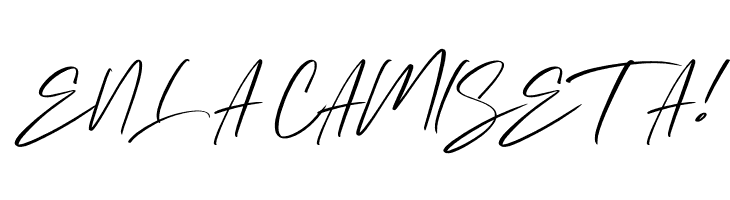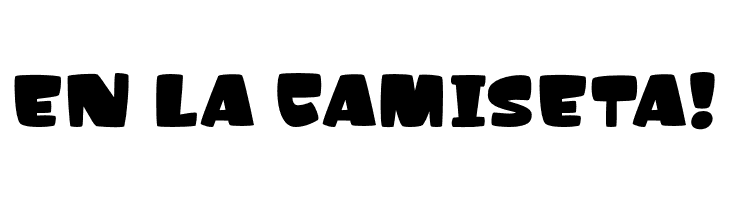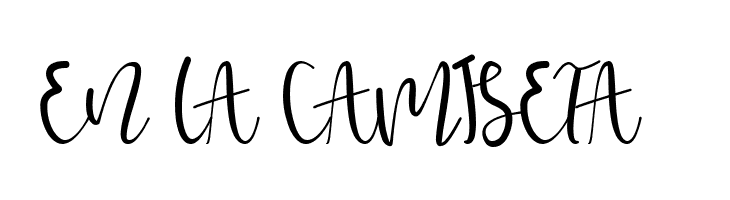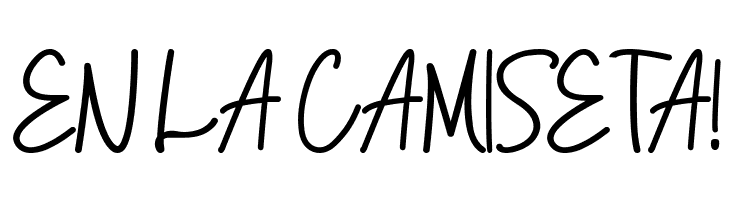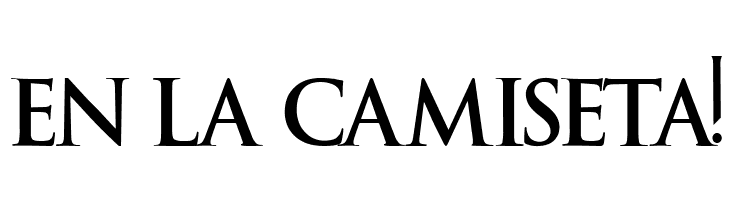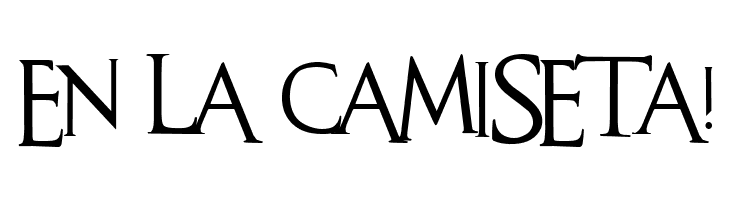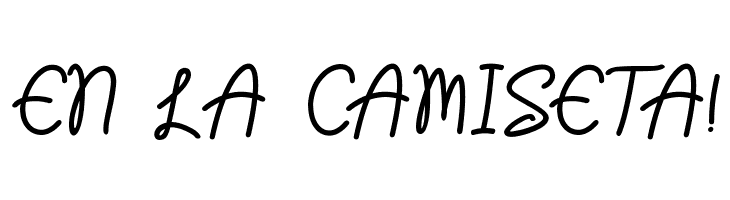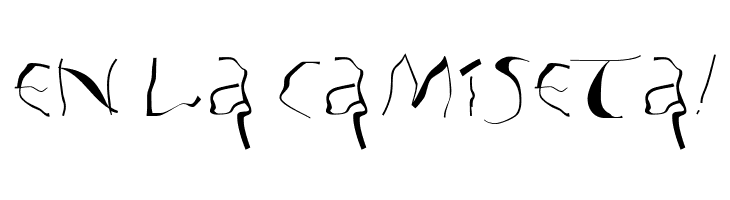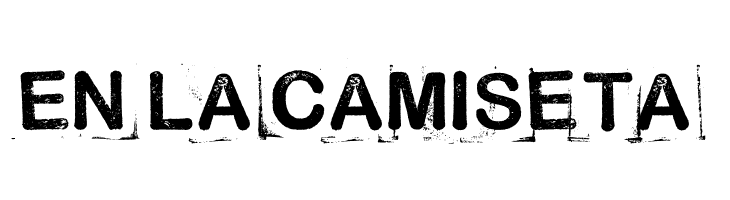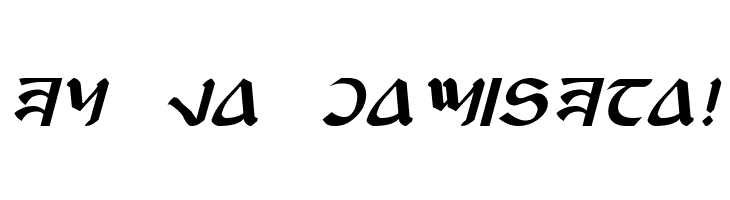
An artistic and whimsical font featuring abstract character illustrations.
An elegant script font with flowing, interconnected letters and high-contrast strokes.
A playful, flowing script font with a natural handwritten style.
A playful, handwritten font with a casual and whimsical style.
A flowing, elegant script font with a natural handwritten style.
A bold, angular font with a futuristic and aggressive style.
A pixelated, geometric font with a retro digital style.
A dynamic cursive font with a fluid, elegant style.
A playful and elegant script font with a handwritten style.
A lively and expressive handwritten font with fluid, artistic letterforms.
Ornate, pictorial font based on indigenous American symbols.
Elegant handwritten script font.
A bold, rounded font with a playful and chunky style.
A bold, dripping font perfect for horror or Halloween themes.
A bold, dripping effect font with a playful and eerie style.
A bold, playful font with a unique dripping effect, ideal for eye-catching designs.
A flowing, cursive font with elegant, sweeping lines and intricate flourishes.
An elegant and sophisticated script font with intricate swashes and flourishes.
An elegant, cursive font with ornate flourishes and a handwritten style.
A bold, graffiti-inspired font with sharp, angular lines and dynamic energy.
A playful, hand-drawn font with quirky, uneven strokes.
A bold, distressed font with a grunge, stamped appearance.
An artistic and whimsical font with characters transformed into unique faces and abstract figures.
An abstract and dynamic font with irregular, jagged strokes and fluid curves.
A raw, edgy, hand-drawn style with jagged, uneven strokes.
A playful, casual handwritten font with fluid strokes and a friendly appearance.
A bold, geometric font with calligraphic influences, perfect for creative and modern designs.
A bold, geometric font with sharp edges and a modern-traditional blend.
A bold, italicized font with dynamic slant and angular design.